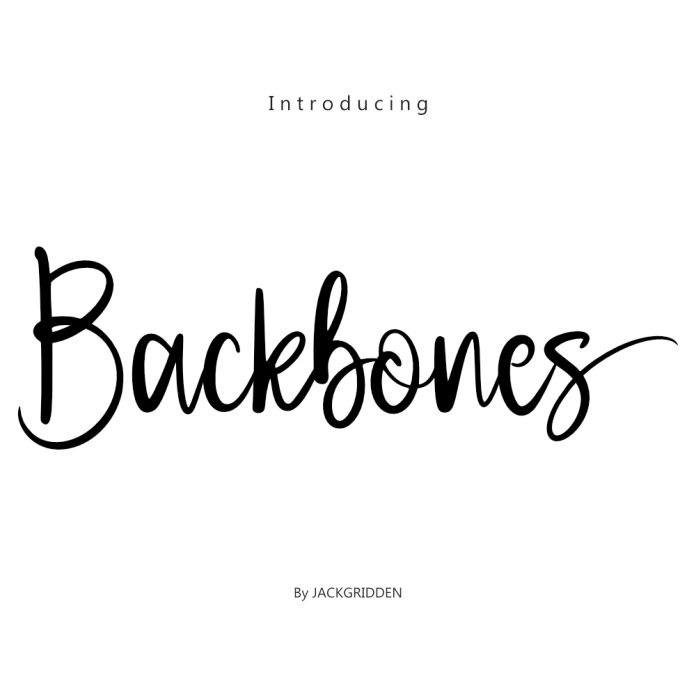
Backbones Font is a bold and elegant script font that exudes sophistication and class. With its clean lines and intricate details, it adds a touch of luxury to any project. Perfect for branding, logos, invitations, and more.